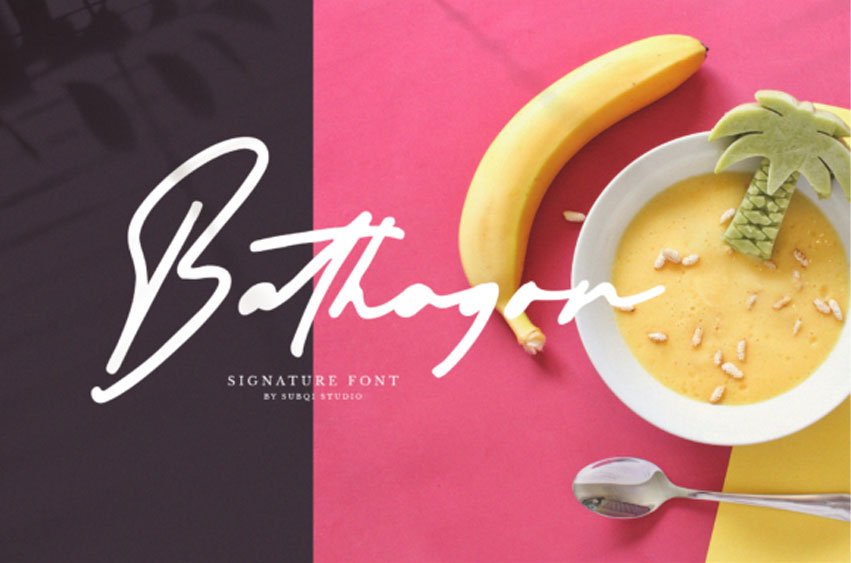
Bathagor Font is a cool and fun script with a unique charm. Fall in love with its authentic vibe!
This font is well-suited for a variety of contexts, such as print design, promotional materials, or magazine layouts.